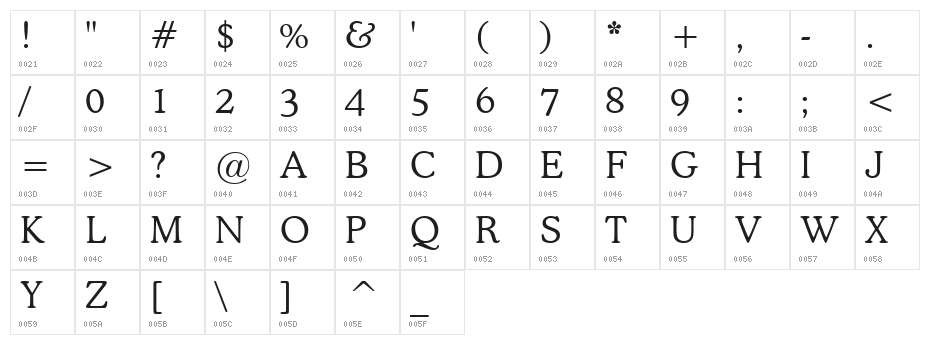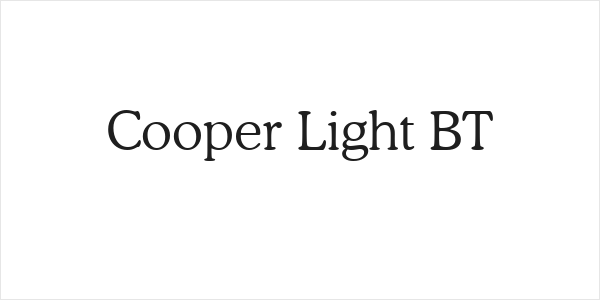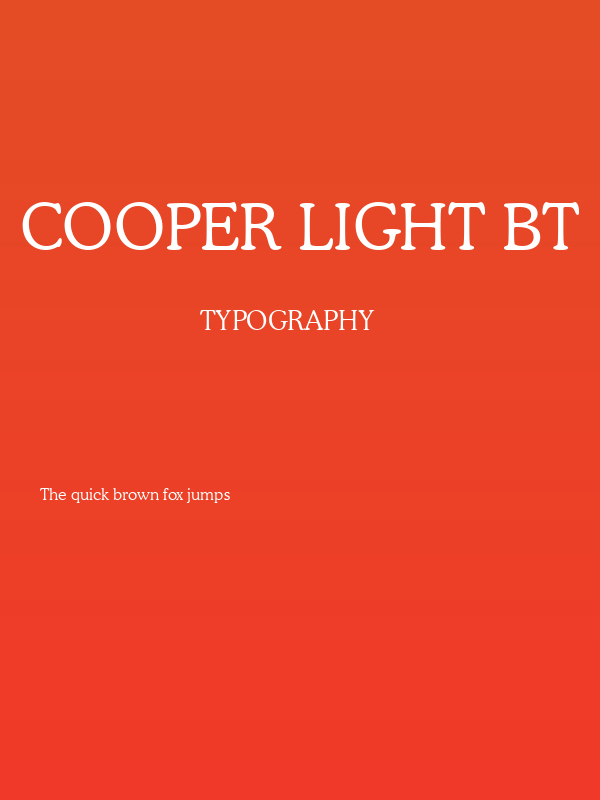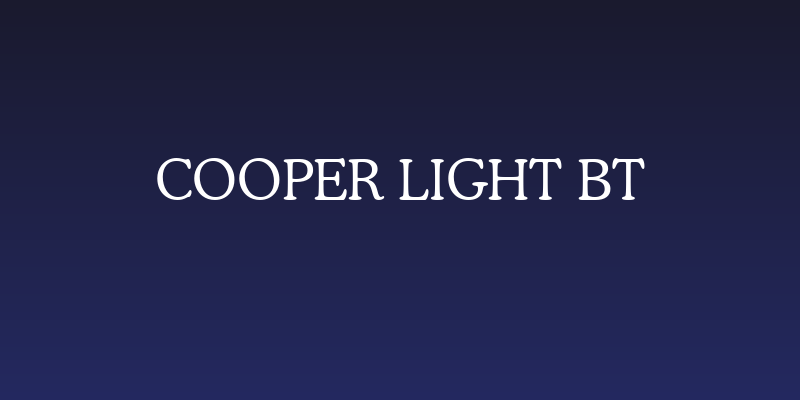
Cooper Light BT Font
Cooper Light BT Description
This font features a classic serif style with rounded edges and a smooth, flowing appearance. The letters have a playful yet elegant look, characterized by their soft curves and slightly exaggerated serifs. The overall design is friendly and approachable, making it suitable for a variety of applications. The uppercase letters are bold and prominent, while the lowercase letters maintain a consistent and harmonious flow. Numbers and special characters are designed with the same attention to detail, ensuring readability and aesthetic appeal.
| Overall Style | Classic |
| Use Case | Logos, Headlines, Invitations |
| Proposed Projects | Ideal for branding, packaging, invitations, and editorial design projects. |